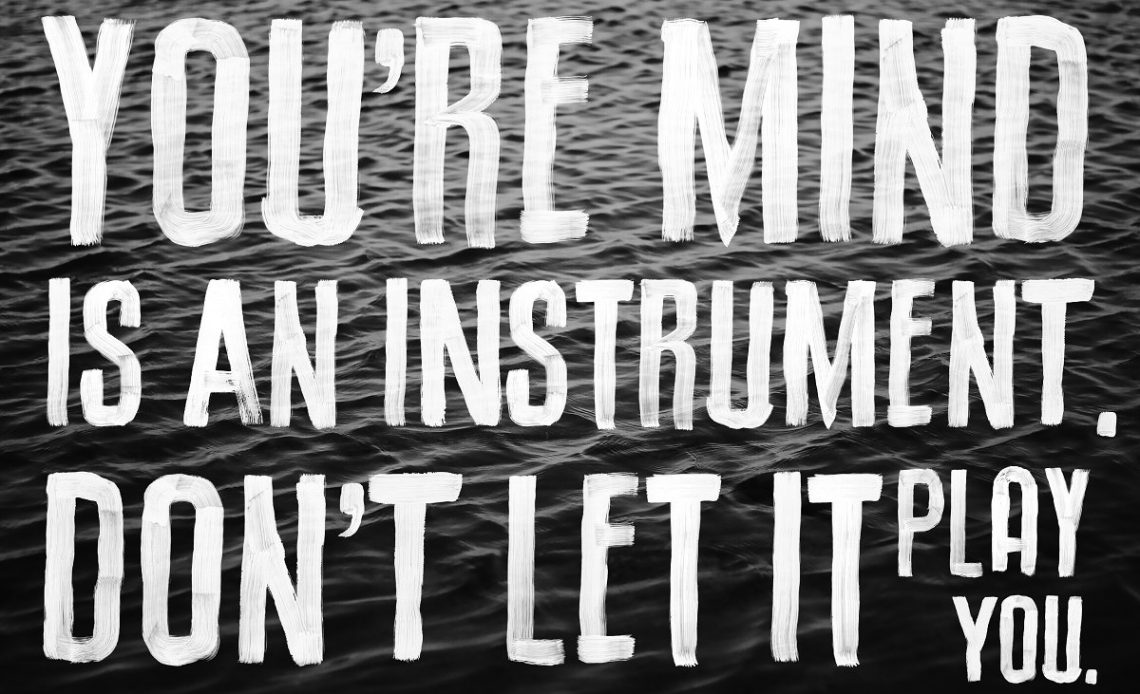
Make your wedding signs stand out with Mr. Poster, the best font for wedding signs! Created by Type Cargo, Mr. Poster is a hand painted brush font that captures the rich stroke imperfections of an authentic, illustrated typeface. With its unique characteristics, this font lends itself to bold, punchy type treatments that are perfect for achieving a realistic, hand painted feel.
Mr. Poster includes three fonts in total: SVG regular, SVG alternates, and standard vector. The A-Z upper and lowercase letters, numbers, punctuation, and extra characters (no alternates) make it easy to create beautiful wedding signs that will impress your guests. For a more realistic look, alternate letters and numbers are also included.
The traditional vector font is stripped down, making it easy to use with a wider variety of applications like Word. However, it does not include language support.